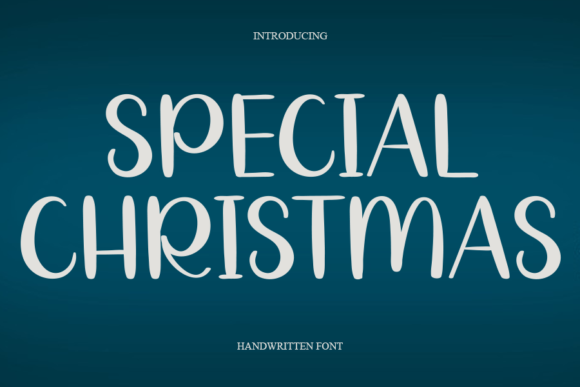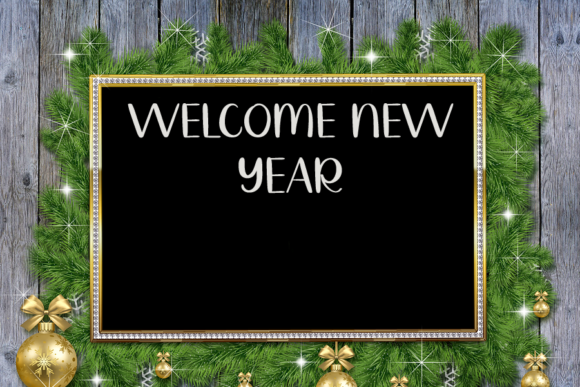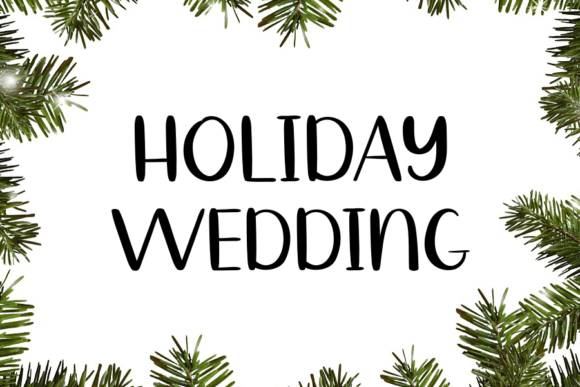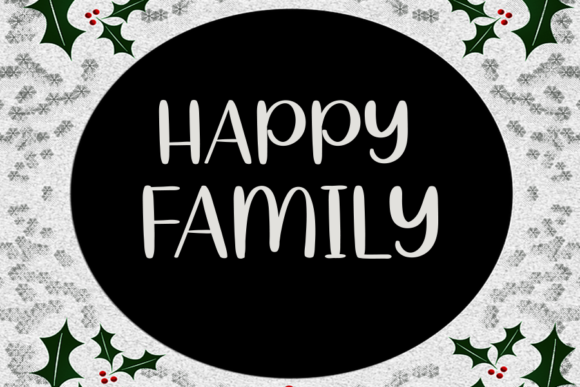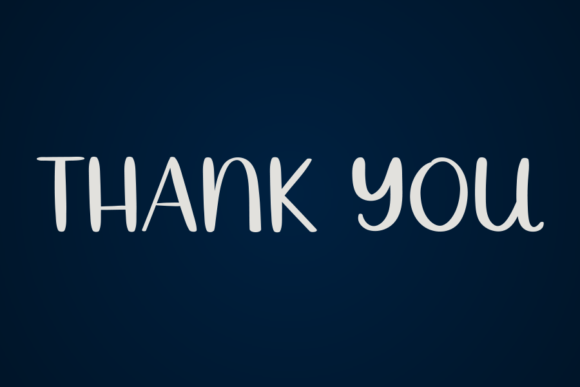
Special Christmas Font
Special Christmas is a simple and clean handwritten font that captures the essence of the holiday season. With its charming and playful character, this font is the perfect choice for creating eye-catching logos, branding, and quotes that evoke the spirit of Christmas.
The clean and neat letterforms of Special Christmas give it a modern and versatile appeal. It is designed to be easily readable while maintaining a touch of handcrafted charm. This makes it suitable for a wide range of applications, from digital designs to printed materials.
Special Christmas shines in logo design, as it can add a festive and joyful touch to your brand identity. Whether you’re creating a logo for a Christmas-themed business, an event, or simply want to infuse your brand with holiday cheer, this font will help you achieve a unique and memorable look.
Branding materials such as packaging, labels, and promotional materials can also benefit from the use of Special Christmas. Its simplicity and clean design make it a versatile choice that can complement various design styles and themes. The font’s handwritten feel adds a personal and authentic touch, enhancing the overall visual appeal of your brand.
Quotes and typography-based designs are another area where Special Christmas can shine. Whether you’re creating social media graphics, inspirational quote posters, or holiday greeting cards, this font will add a delightful and festive element to your designs. Its simplicity allows the message to take center stage, while its handwritten style brings a warm and welcoming feel.
In summary, Special Christmas is a simple and clean handwritten font that is ideal for creating eye-catching logos, branding, and quotes. Its festive charm and versatility make it the perfect choice for capturing the spirit of the holiday season. Add Special Christmas to your favorite creations and let it amaze you with the delightful outcome it generates.